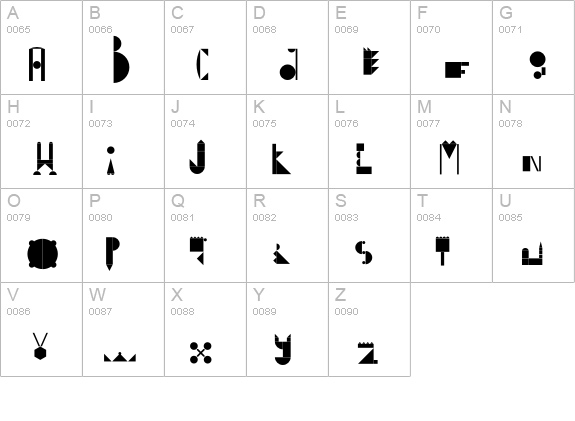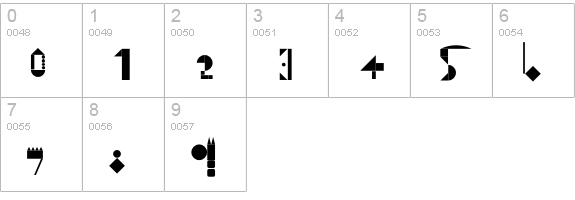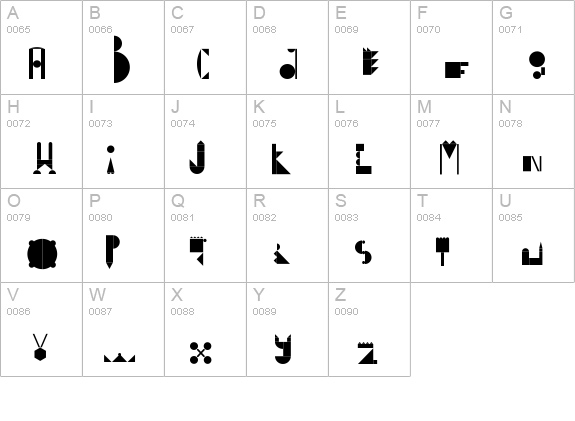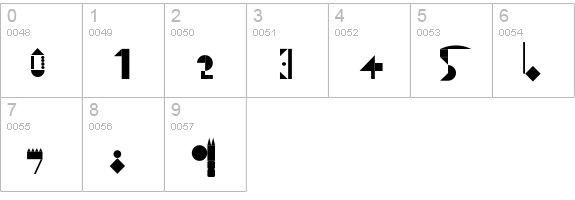
DIY-Foundations font is a versatile and modern typeface that is perfect for a wide range of design projects. With its clean lines and stylish appearance, this font exudes creativity and professionalism. Whether you're designing a logo, poster, or website, DIY-Foundations font will give your project a fresh and contemporary look. This font is freely available to download at FontsMarket.com, making it accessible to designers of all levels. Its bold and eye-catching style will make your text stand out and leave a lasting impression on your audience. Add a touch of sophistication and flair to your designs with DIY-Foundations font today!